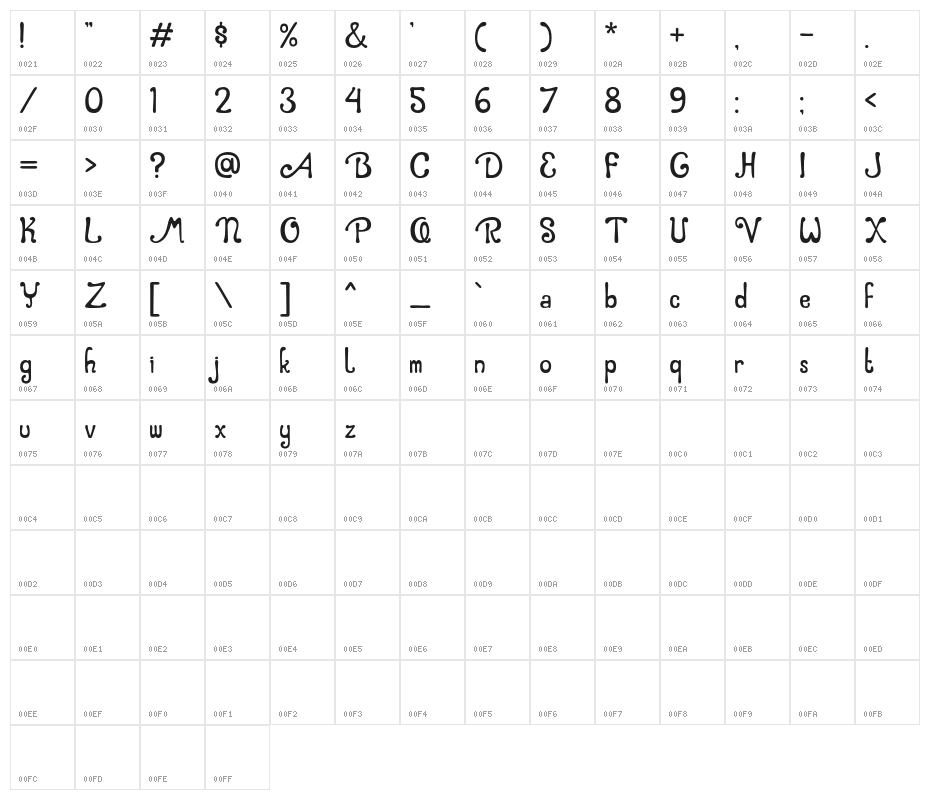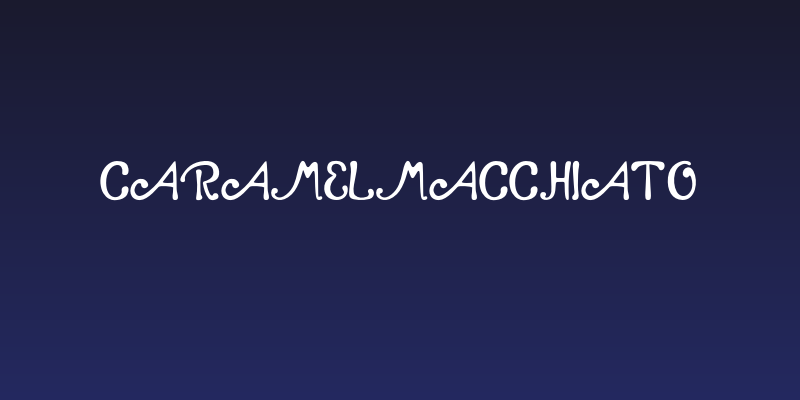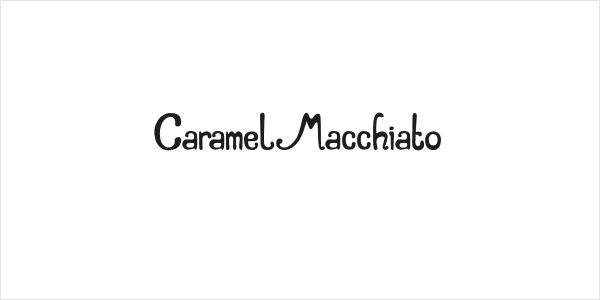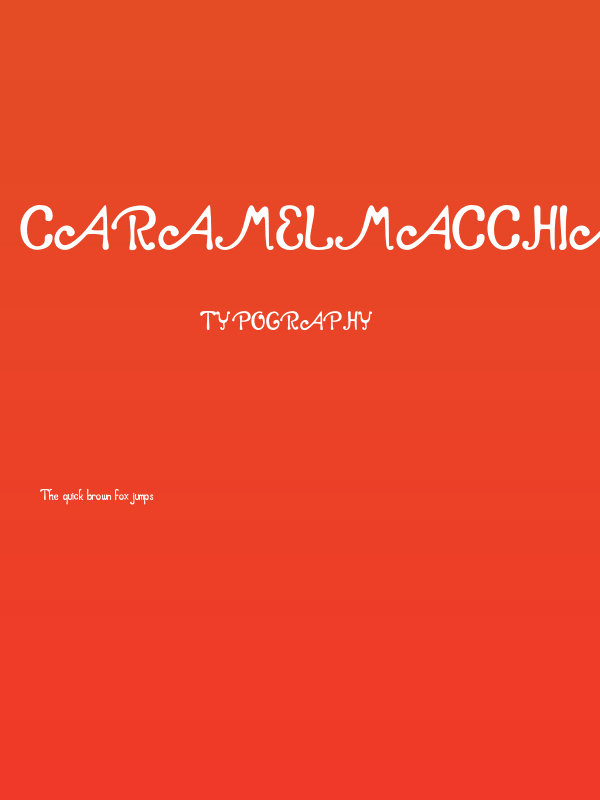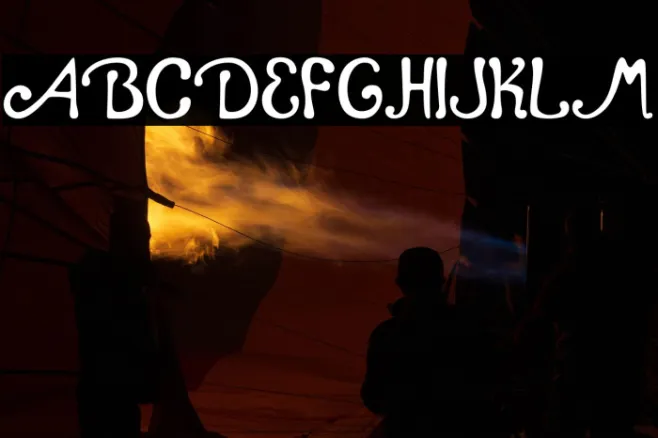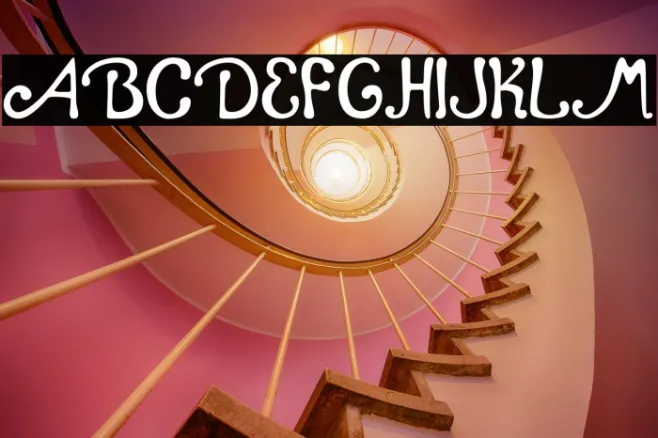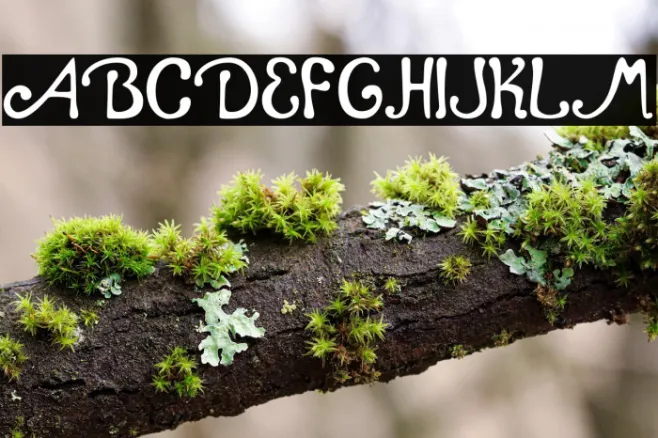
CaramelMacchiato Font
CaramelMacchiato Description
This font features a playful and whimsical style with a handwritten appearance. The characters are rounded and have a flowing, casual feel, reminiscent of a relaxed, friendly script. The uppercase letters are bold and slightly exaggerated, while the lowercase letters maintain a consistent, smooth flow. The numbers and special characters are designed to match the overall playful aesthetic, making them suitable for creative and informal contexts. The font's unique style adds a touch of personality and charm, making it ideal for projects that require a fun and engaging look.
| Proposed Projects | Ideal for greeting cards, children's books, playful branding, and casual invitations. |